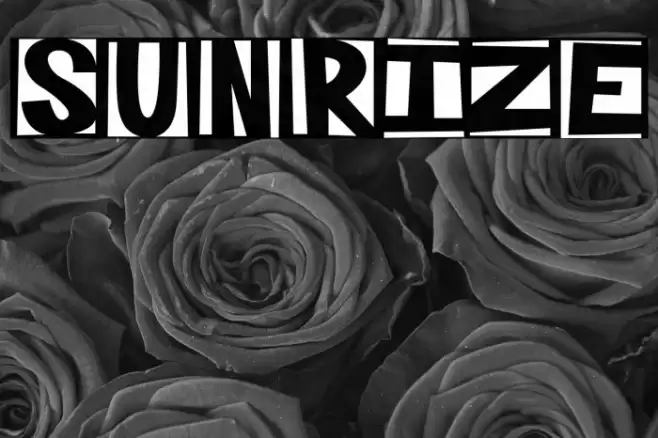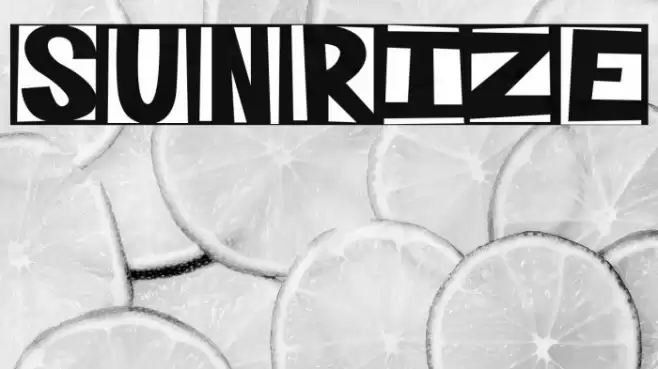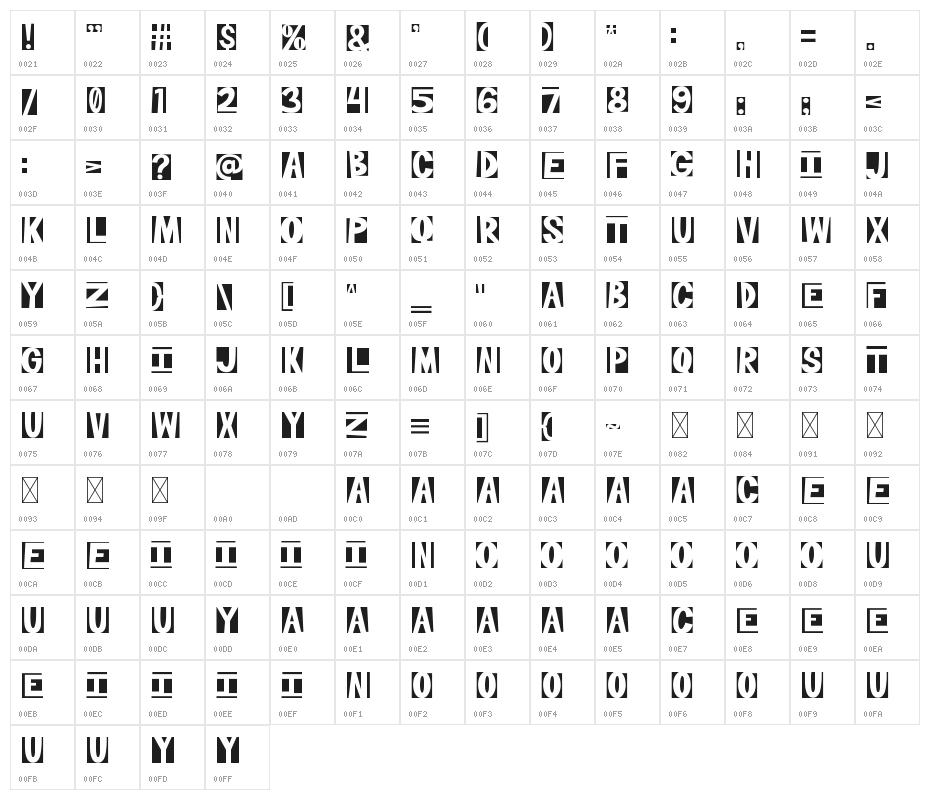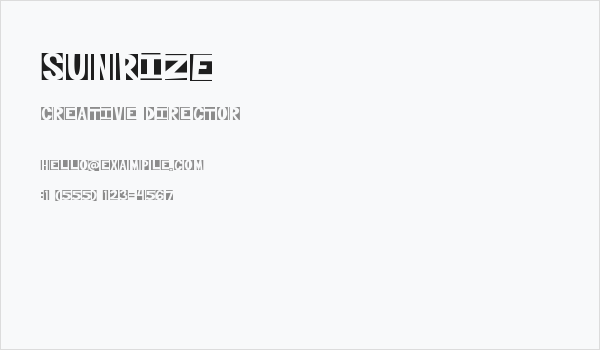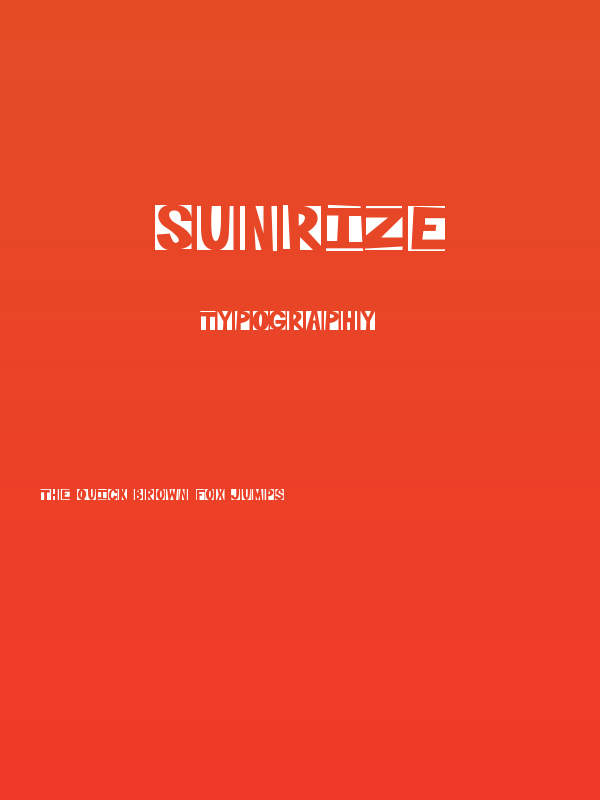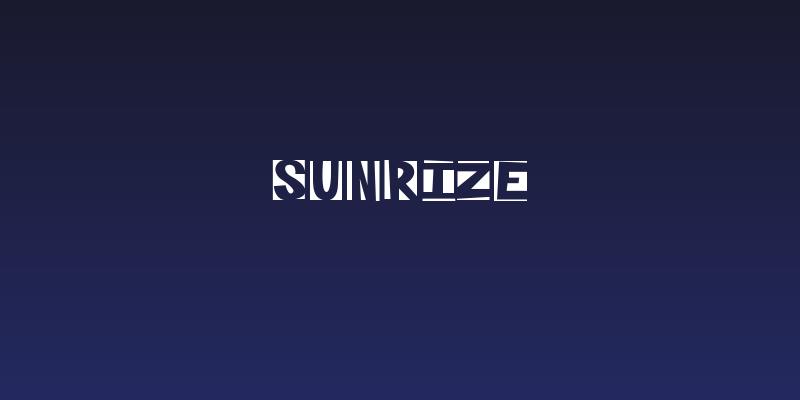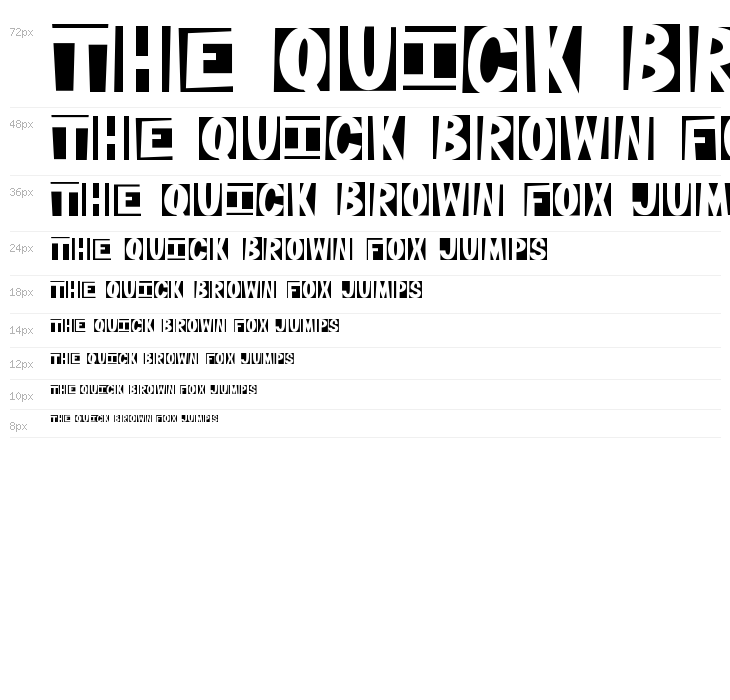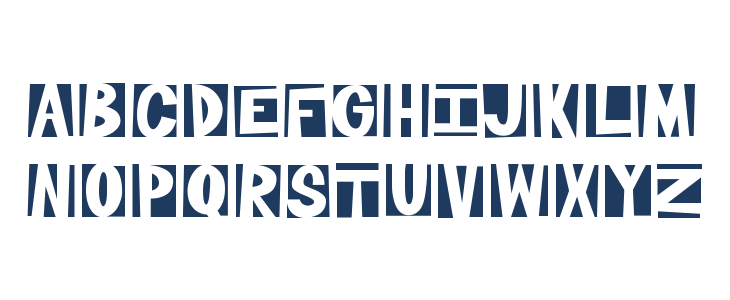
SUNRIZE Font
SUNRIZE Description
This font features a bold and dynamic style with a distinct geometric flair. Each character is crafted with sharp angles and unique cutouts, creating a sense of movement and energy. The uppercase and lowercase letters maintain a consistent design, while the numbers and special characters integrate seamlessly into the overall aesthetic. The font's high contrast and striking appearance make it ideal for attention-grabbing designs.
A bold, geometric font with dynamic angles and high contrast from Uncategorized fonts.
- Proposed Projects: Ideal for posters, logos, and branding materials that require a bold and modern look.